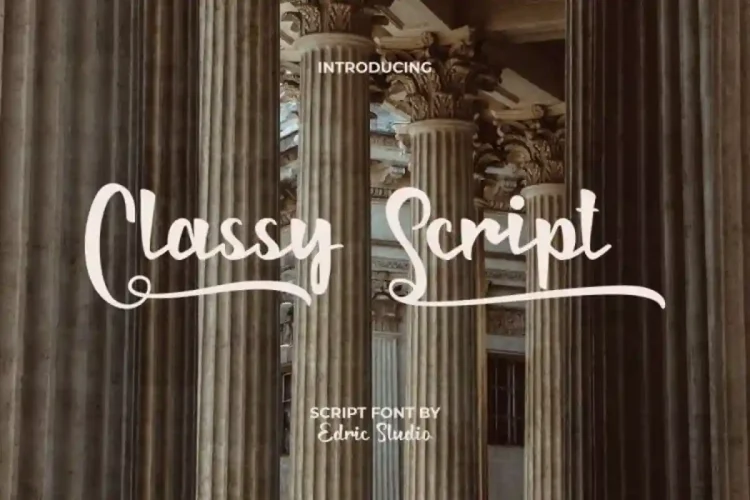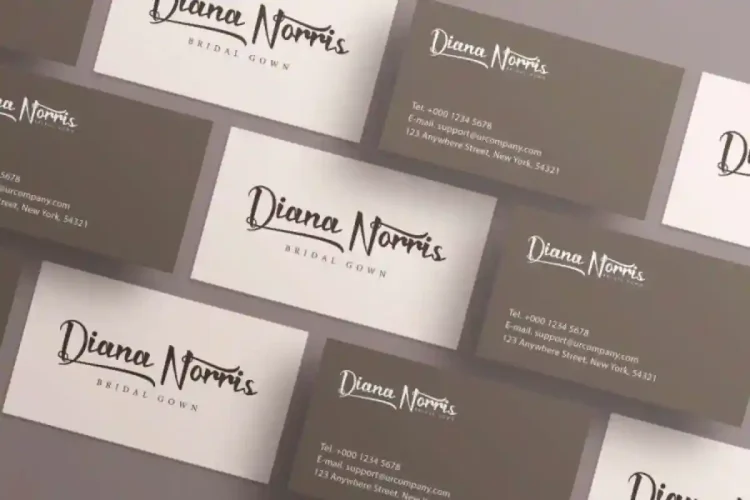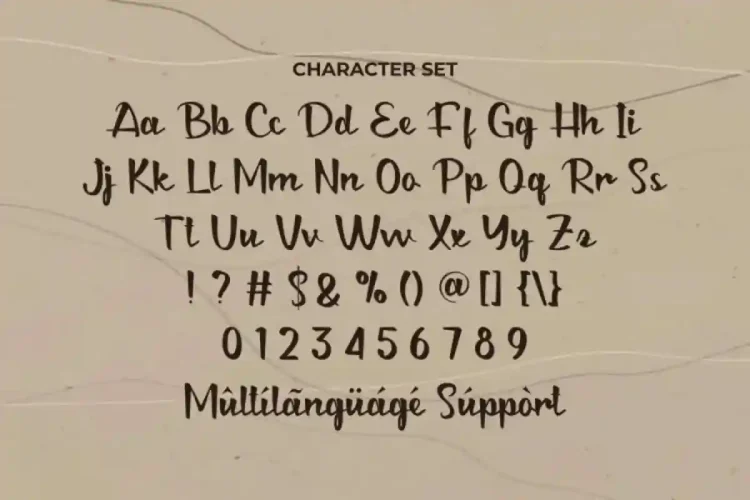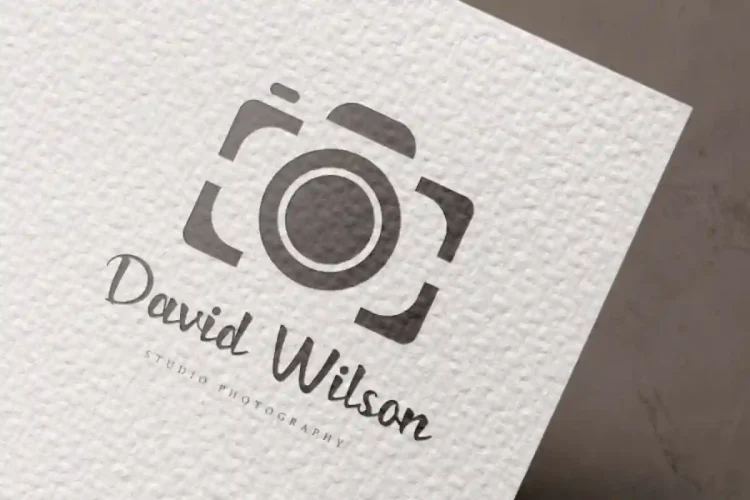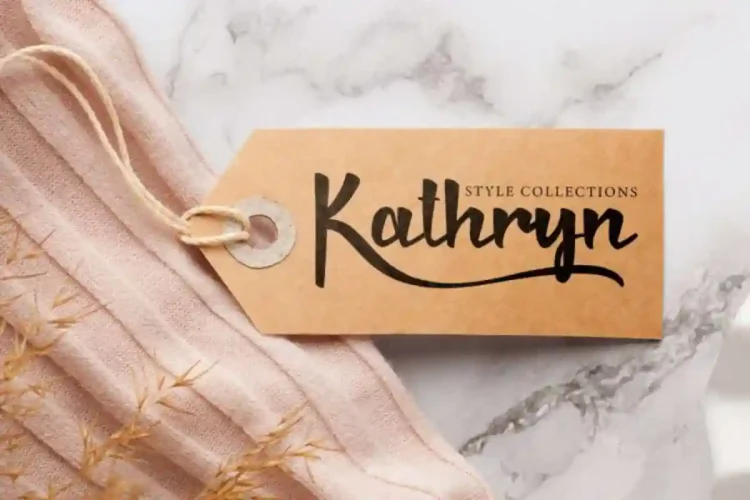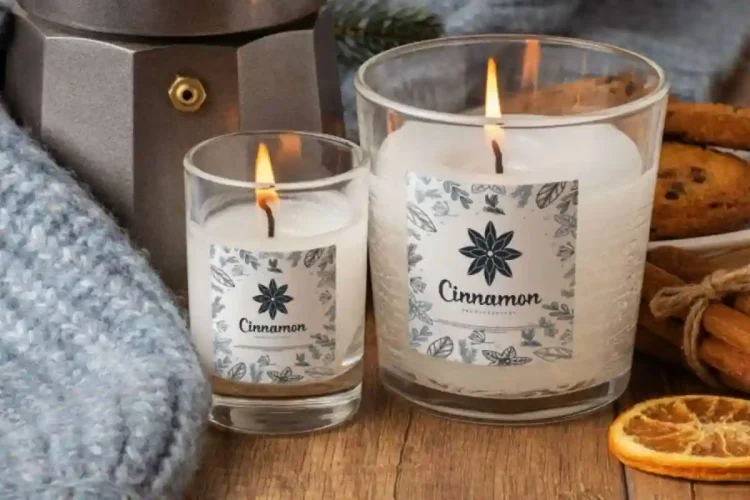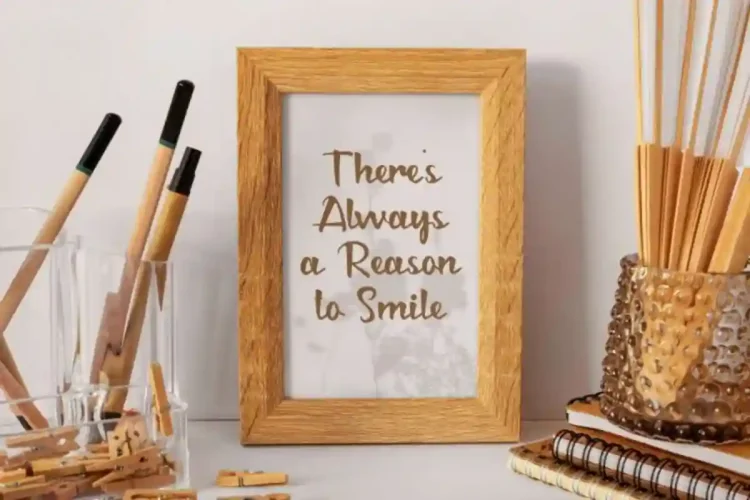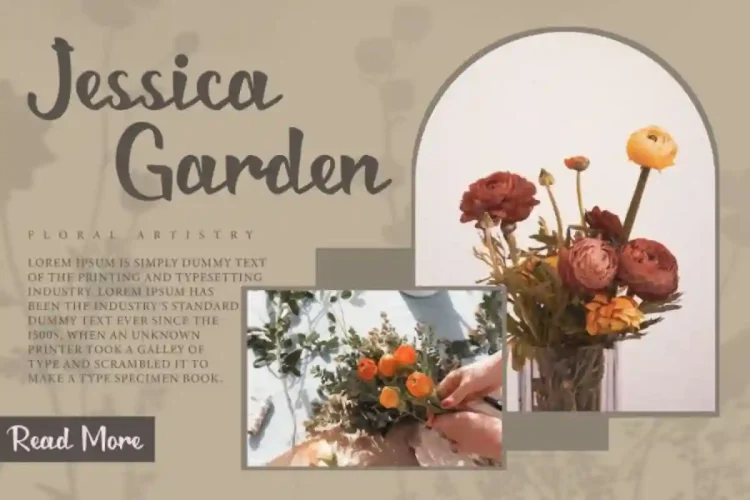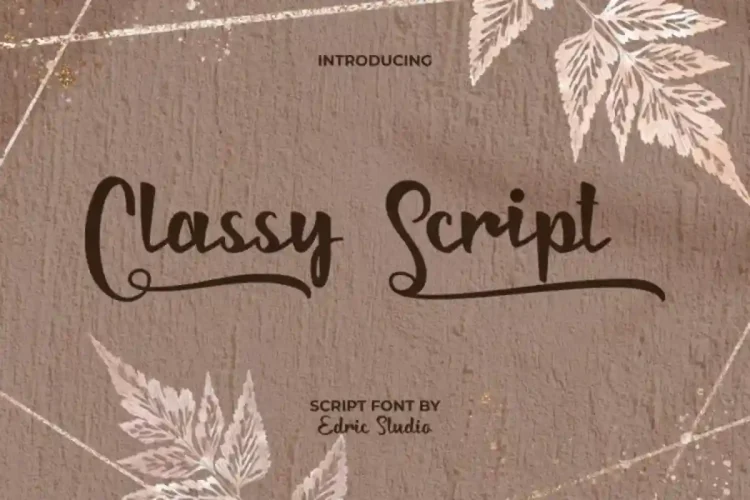
Classy Calligraphy Script Font is a unique thick and thin calligraphic brush strokes font created by EdricStudio. Featuring graceful thick and thin brush strokes, this script font brings sophistication, romance, and artistry to any project.
Classy Calligraphy Script Font this font includes a complete set of uppercase and lowercase letters, numbers, punctuation, symbols, and ligatures. It has a stunning characters set, perfectly managed with well spaced and kerning.
Classy Calligraphy Script Font is a playful typeface with unique decoration in each character. It’s tested to work well in the Adobe Apps (Illustrator, Adobe InDesign, Adobe Photoshop) even work on Microsoft Word. PUA Encode Characters means you can access all the glyphs and other additional characters easily – Fully accessible without additional design software.